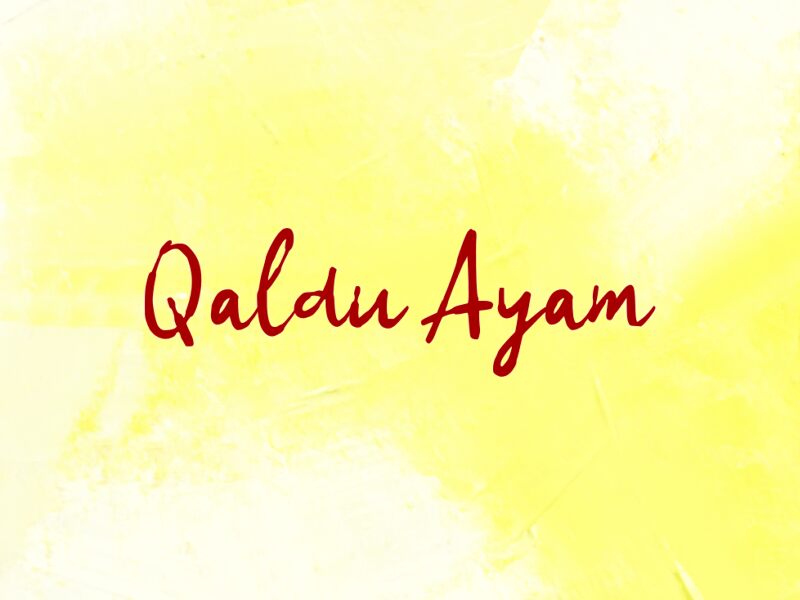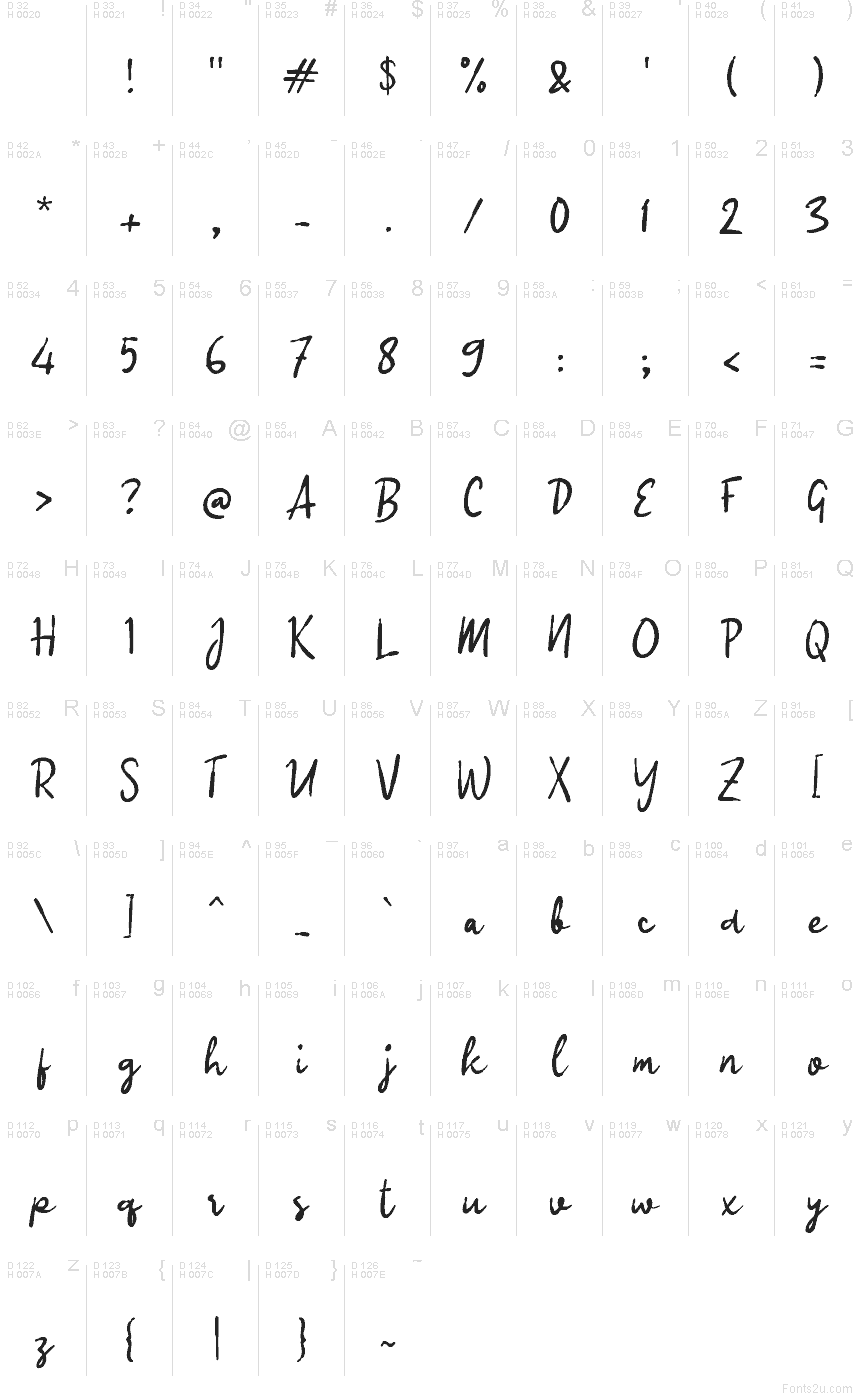
Qaldu Ayam
Qaldu Ayam font by wep is a free handwritten font that feels like a quick note dashed off with a juicy black brush pen. The letters lean and loop with a relaxed confidence, slightly rough at the edges so they feel human, not polished by a machine. There’s an easy, friendly rhythm to the strokes that makes even short words look like a personal signature or a scribbled recipe title.
Using Qaldu Ayam, you get a handwriting style that shines on food branding, café menus, recipe cards, social media quotes, invitation headers, and informal product packaging. This free font carries warmth and a hint of messiness that reads as authentic rather than sloppy, so it holds up well at medium sizes on posters and web graphics. For balance, pair it with a clean geometric sans for body text and let Qaldu Ayam handle the headlines and accents.